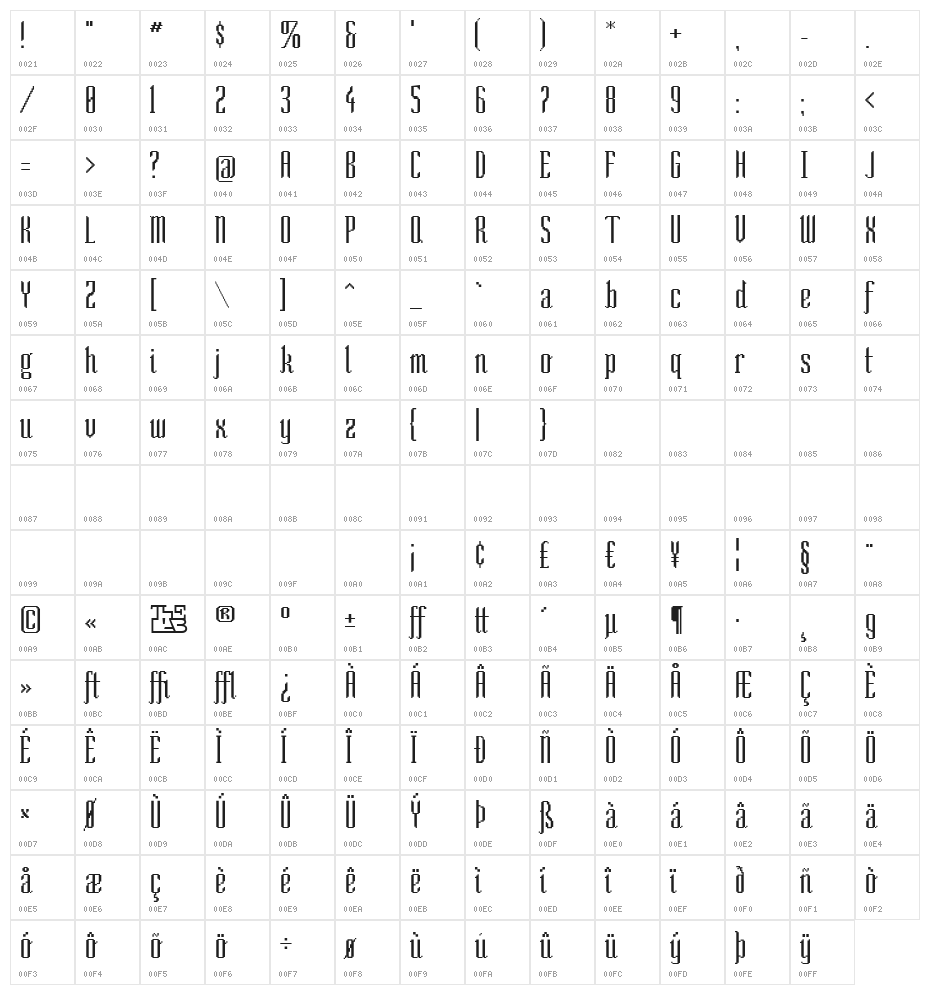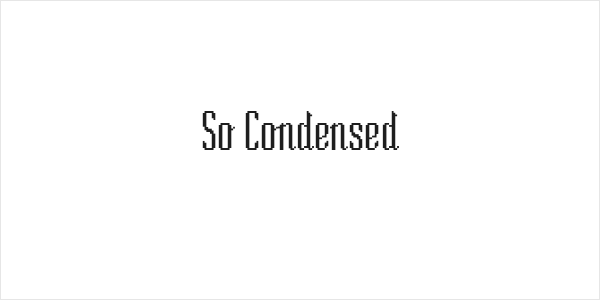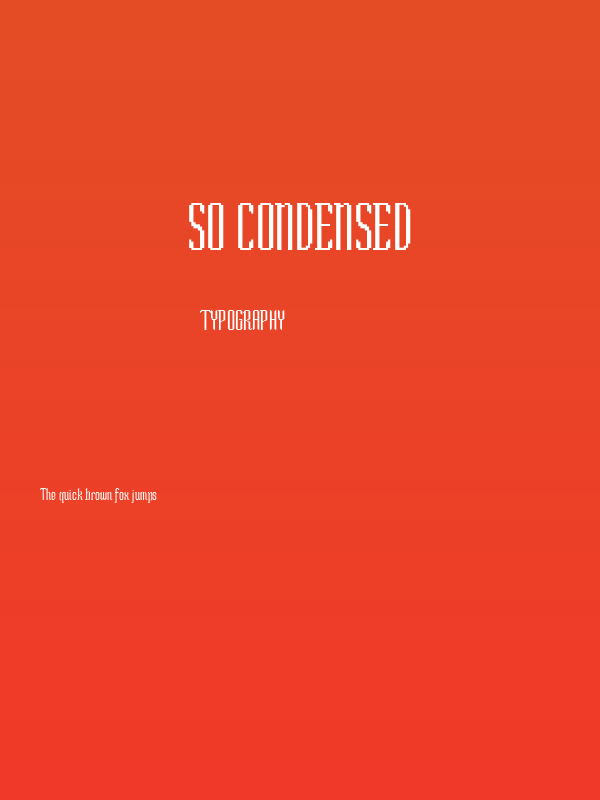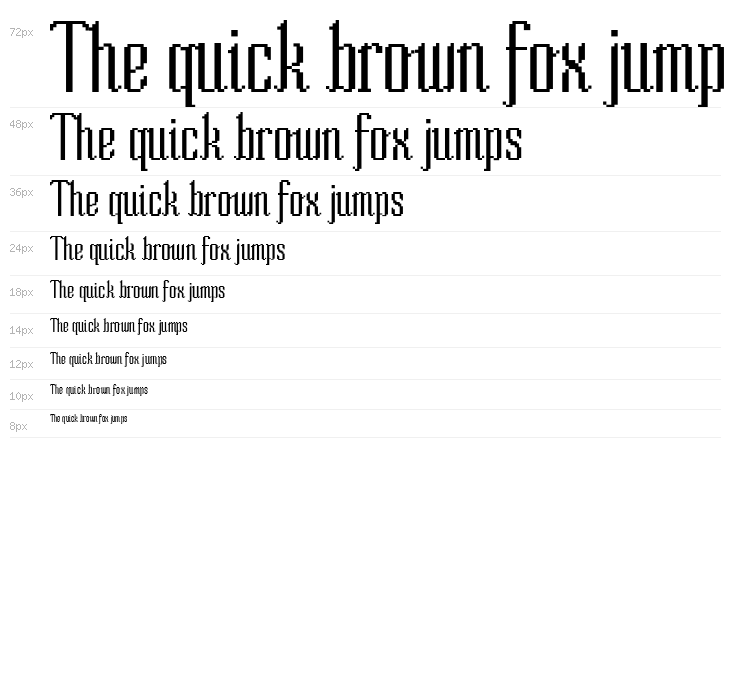
So Condensed Font
So Condensed Description
This font features a condensed and elongated design, characterized by tall, narrow letters with a distinct vertical emphasis. The strokes are consistent in width, giving it a uniform appearance. The uppercase letters are particularly striking, with sharp angles and clean lines that convey a sense of modernity and precision. The lowercase letters maintain this aesthetic, offering a cohesive look across different text sizes. Numbers and special characters are designed to match the overall style, ensuring readability and visual harmony. This font's unique structure makes it suitable for creating impactful headlines and titles.
Proposed ProjectsIdeal for magazine headlines, posters, and branding materials where a modern and sleek look is desired.